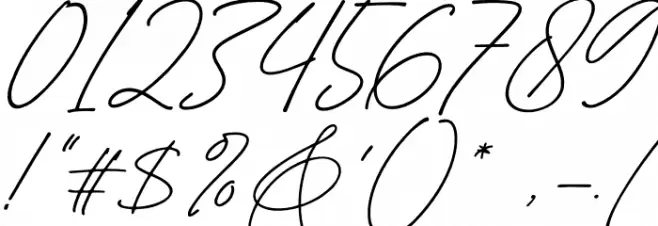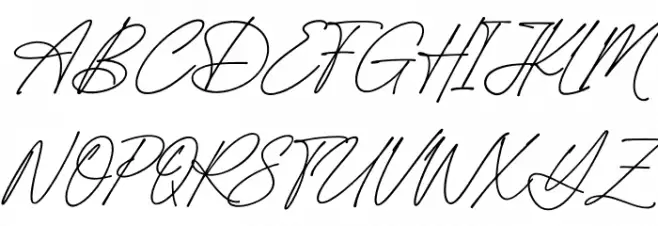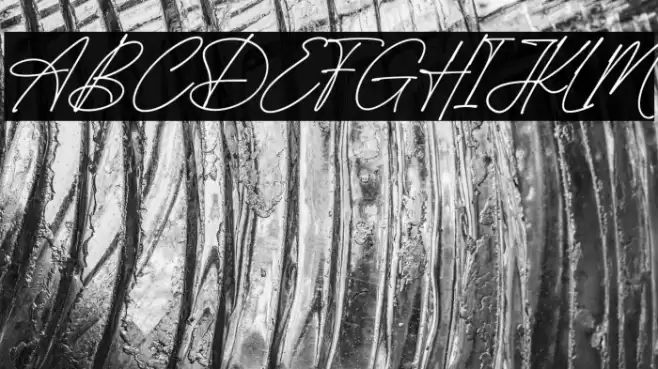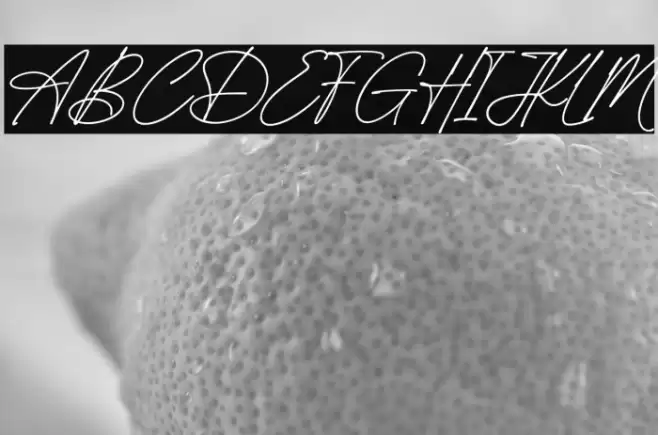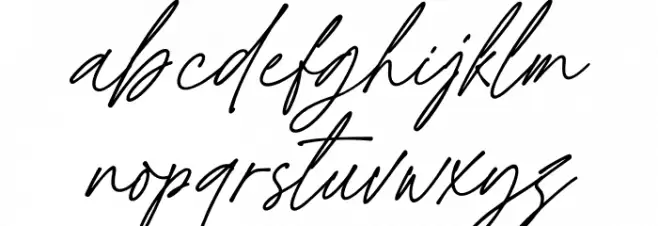
Angellica Signature Font
Angellica Signature Description
A cursive, handwritten script font with elegant, flowing lines and a slightly slanted style, resembling natural handwriting with a smooth, continuous stroke.
| Overall Style | Elegant, Personal, Artistic |
| Use Case | Invitations, greeting cards, personal branding, logos, decorative headings |